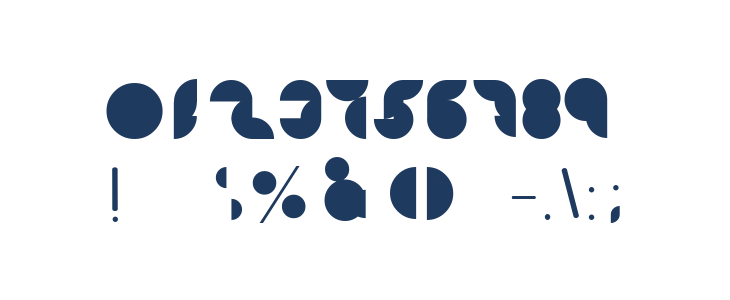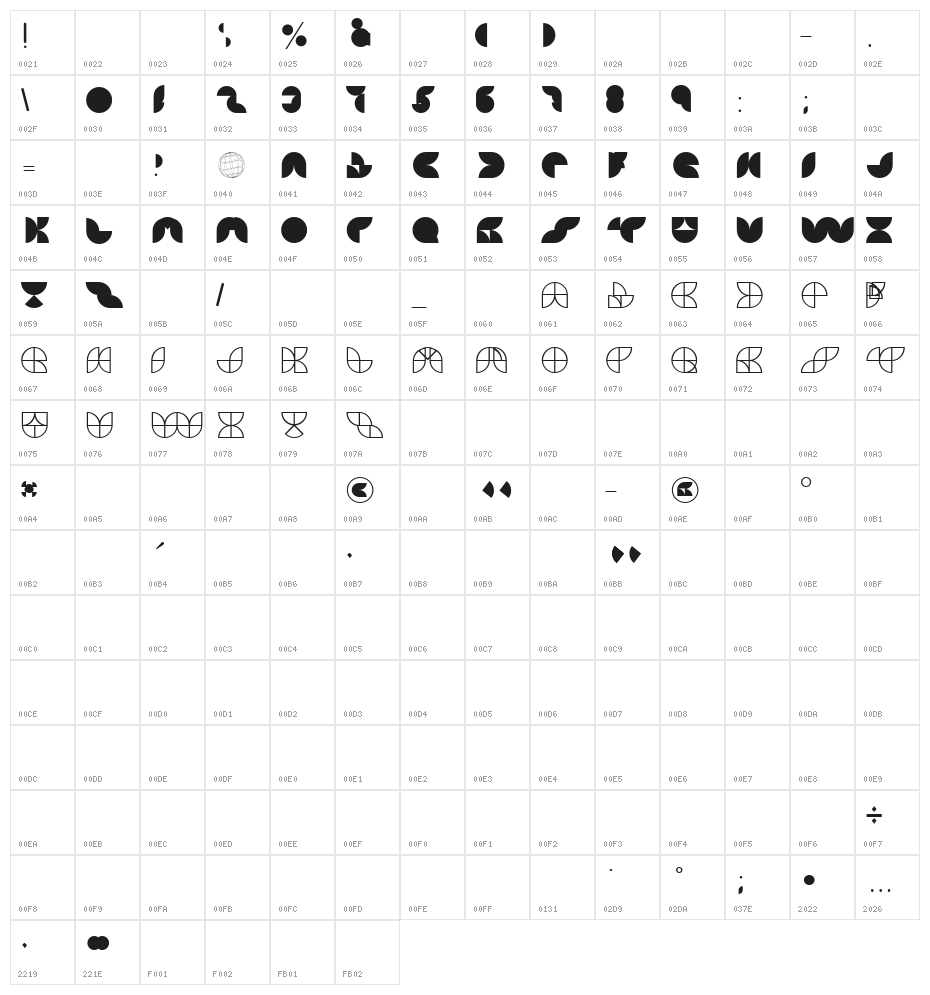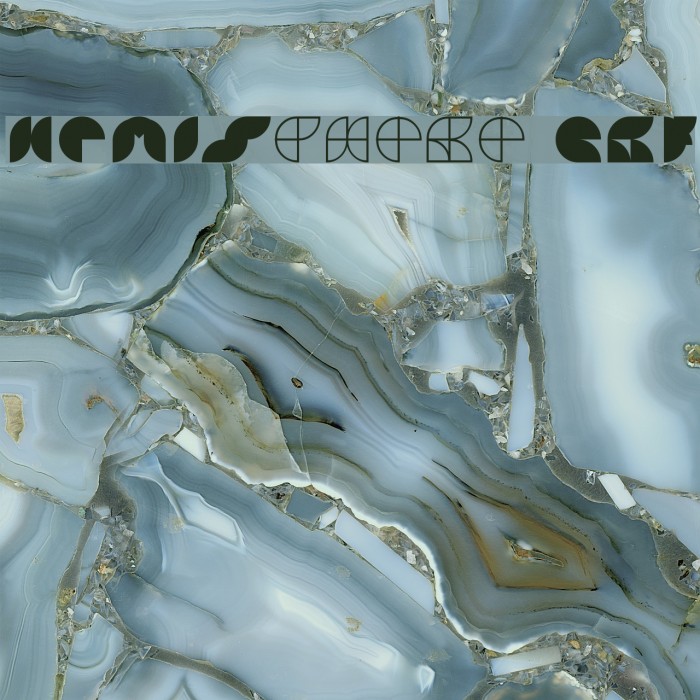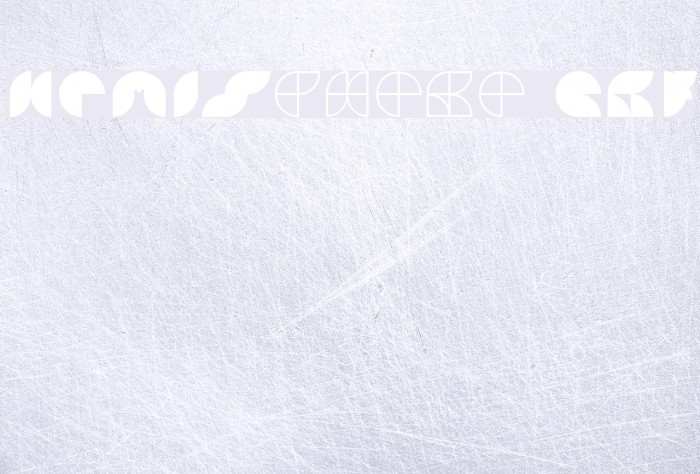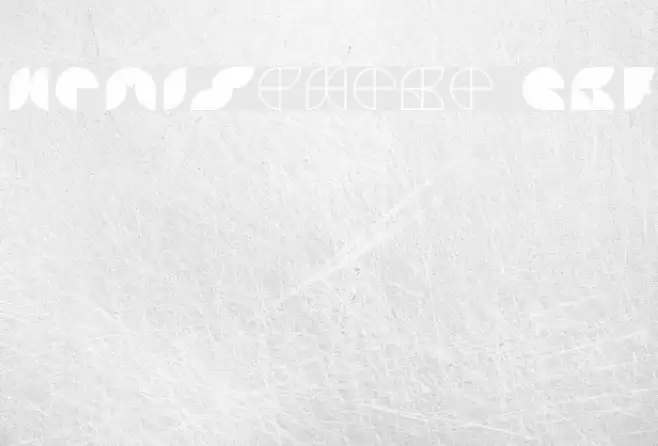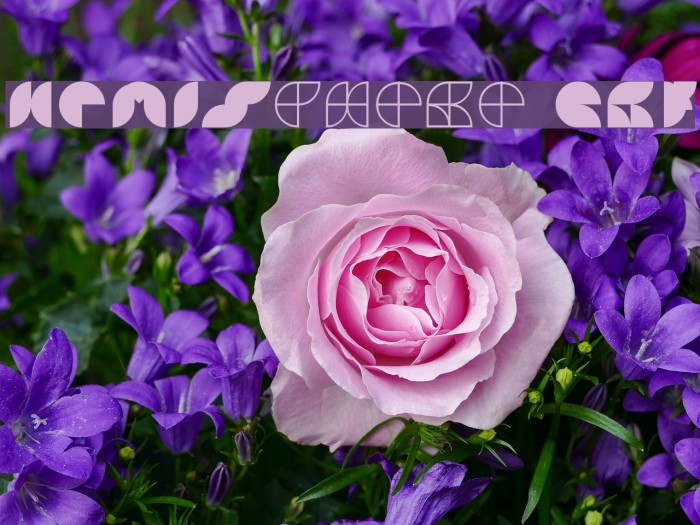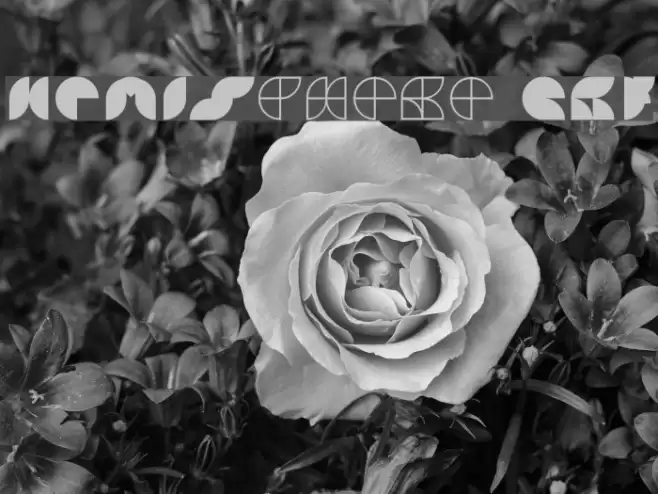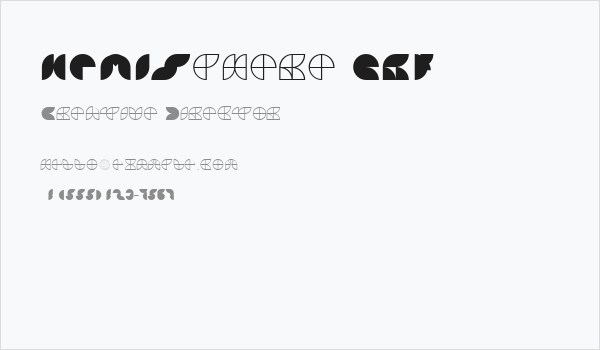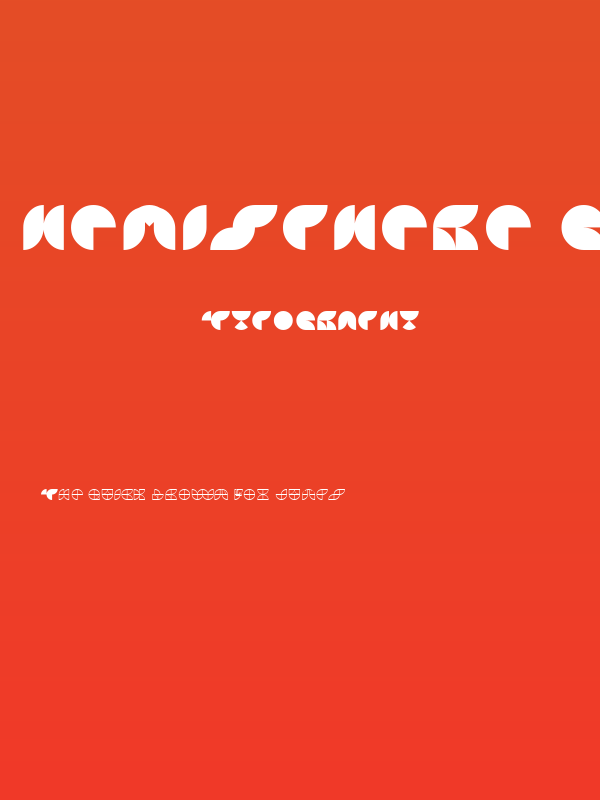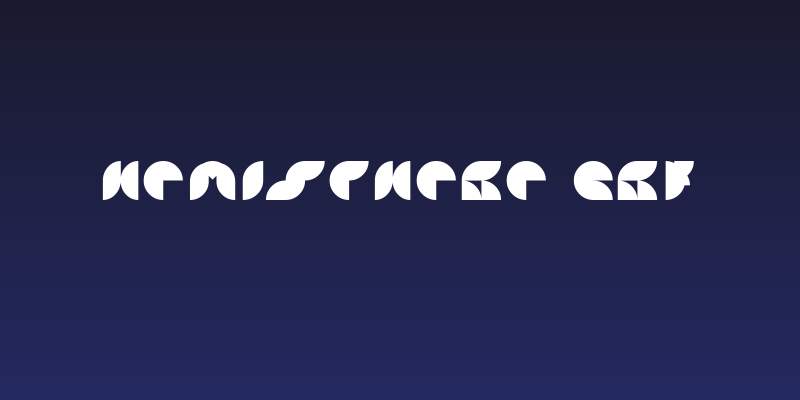
HEMISphere GRF Font
HEMISphere GRF Description
This font features a geometric and futuristic design, characterized by its bold, circular shapes and unique cut-out patterns. The uppercase letters are composed of thick, solid forms with distinct negative spaces, creating a striking visual effect. The lowercase letters maintain the geometric theme with a more intricate, outlined style, adding a layer of complexity and elegance. The numerals are bold and consistent with the circular motif, ensuring readability while maintaining the overall aesthetic. Special characters are creatively integrated, enhancing the font's versatility. This font's modern and artistic style makes it ideal for projects that require a bold statement.
| Proposed Projects | Ideal for branding, posters, album covers, and any project requiring a modern, artistic touch. |